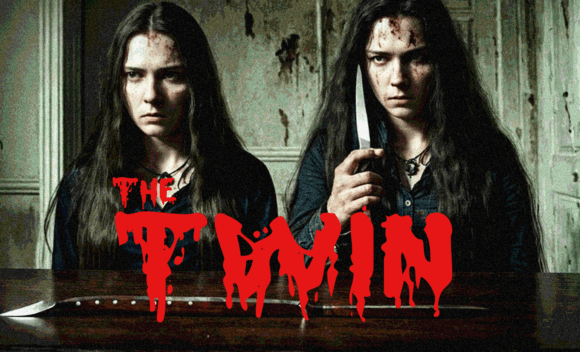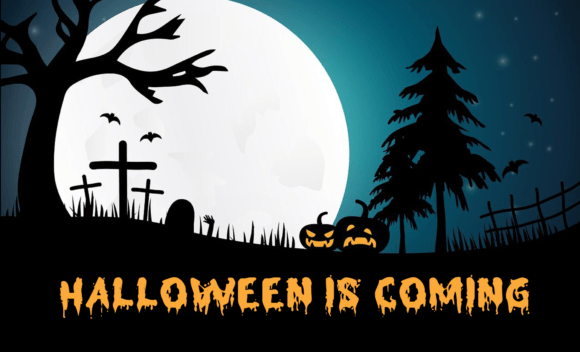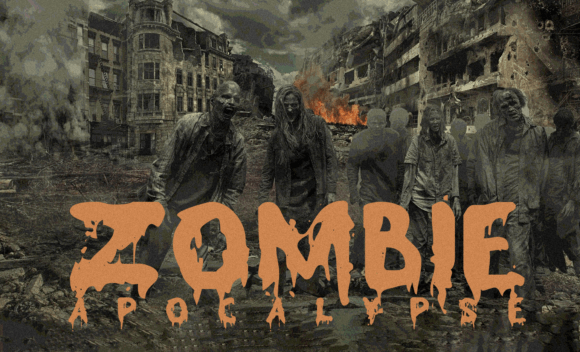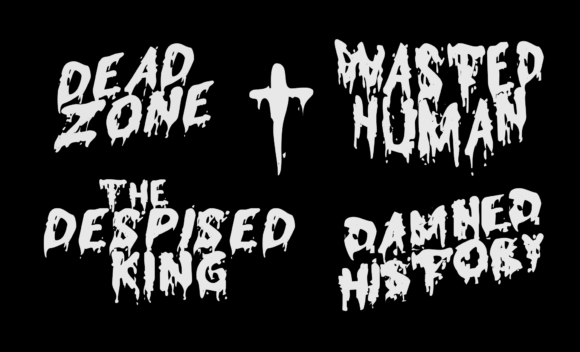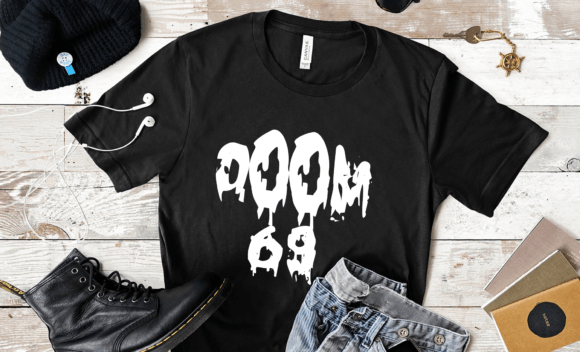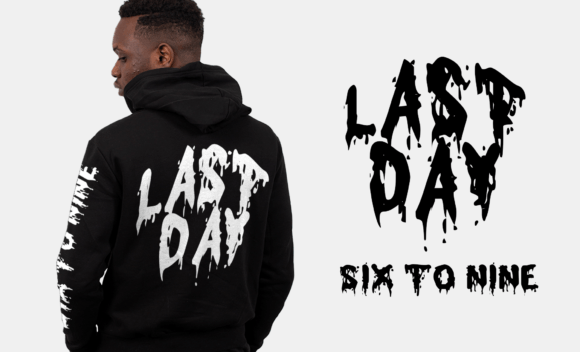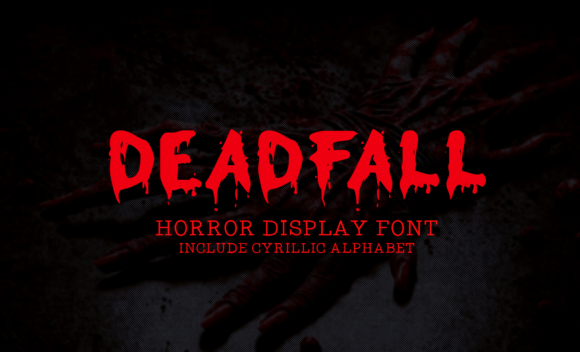
Unleash the Terror with Deadfall Font: The Ultimate Horror Display Font
Are you a designer or crafter looking for a font that can add a touch of horror and eeriness to your projects? Look no further than the Deadfall Font! This ultimate horror display font is designed to cater to a global audience, with the inclusion of the Cyrillic alphabet, making it perfect for a wide range of projects.
What is Deadfall Font?
Deadfall Font is a horror display font that is designed to evoke a sense of fear and unease. With its bold and distressed design, it’s perfect for creating posters, marketing materials, and other visual projects that require a touch of horror. The font comes in both regular and italic variations, giving you the flexibility to use it in a variety of contexts.
Features of Deadfall Font
- Includes Cyrillic Alphabet: Deadfall Font caters to a global audience with the inclusion of the Cyrillic alphabet, making it perfect for designers and crafters who work with clients from different parts of the world.
- Regular and Italic Variations: The font comes in both regular and italic variations, giving you the flexibility to use it in a variety of contexts, from posters to marketing materials.
- Perfect for Horror-themed Projects: Deadfall Font is designed specifically for horror-themed projects, making it perfect for creating chilling movie titles, Death metal logotypes, and Halloween crafts.
Use Cases for Deadfall Font
Deadfall Font is perfect for a wide range of projects, including:
- Posters: Create eye-catching posters for horror movies, haunted houses, or Halloween events.
- Marketing Materials: Use Deadfall Font to create marketing materials that require a touch of horror, such as flyers, brochures, or social media graphics.
- Movie Titles: Create chilling movie titles that will grab the attention of horror movie fans.
- Death Metal Logotypes: Use Deadfall Font to create logotypes for Death metal bands or other heavy metal music genres.
- Halloween Crafts: Create spooky crafts for Halloween, such as invitations, decorations, or party favors.
Why Choose Deadfall Font?
There are many reasons why you should choose Deadfall Font for your next project:
- Unique Design: Deadfall Font has a unique and distressed design that will add a touch of horror to your projects.
- High-quality: The font is designed to be high-quality and clear, making it perfect for use in a variety of contexts.
In conclusion, Deadfall Font is the ultimate horror display font that is perfect for designers and crafters who are looking to add a touch of horror to their projects. With its bold and distressed design, inclusion of the Cyrillic alphabet, and regular and italic variations, it’s perfect for a wide range of projects. Whether you’re creating posters, marketing materials, movie titles, or Halloween crafts, Deadfall Font is the perfect choice. So why wait? Unleash the terror with Deadfall Font and take your projects to the next level!